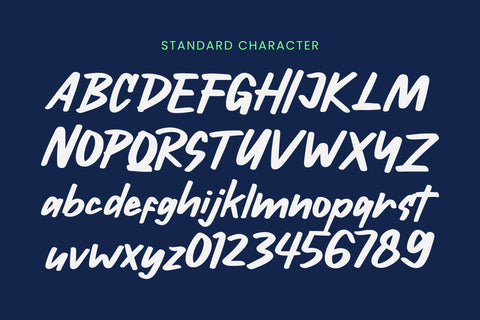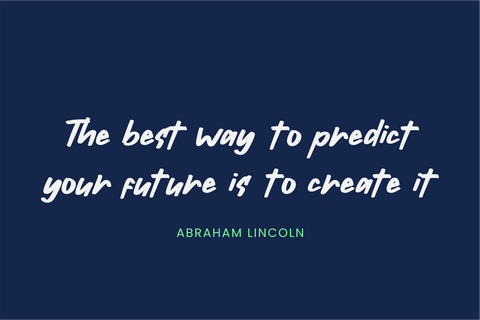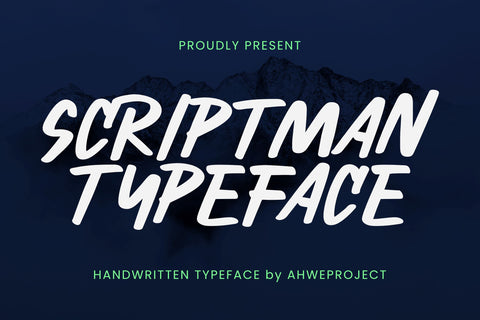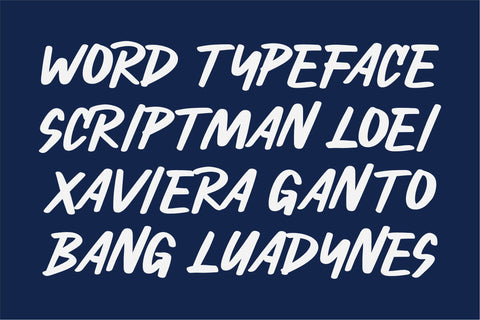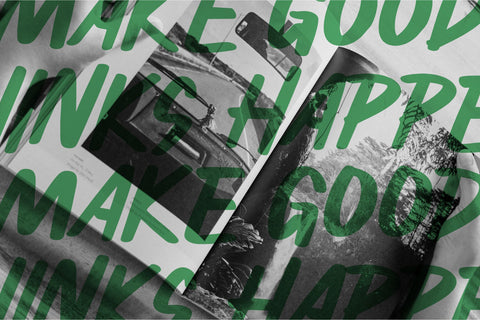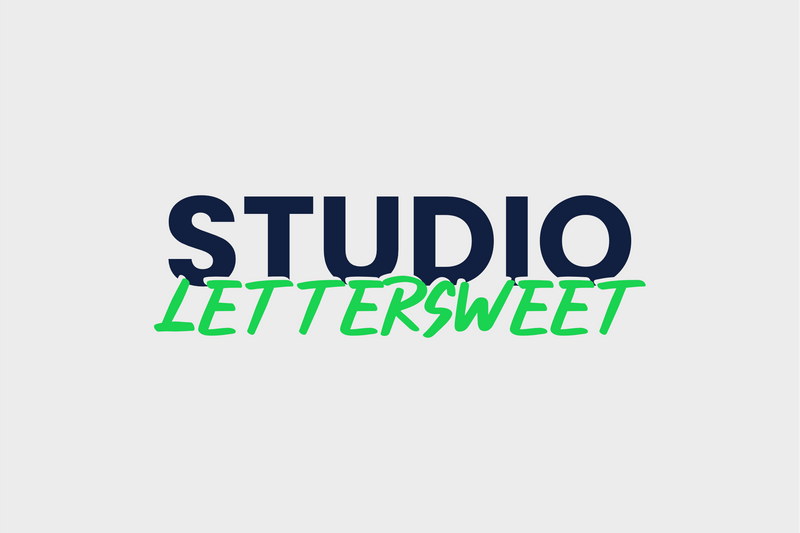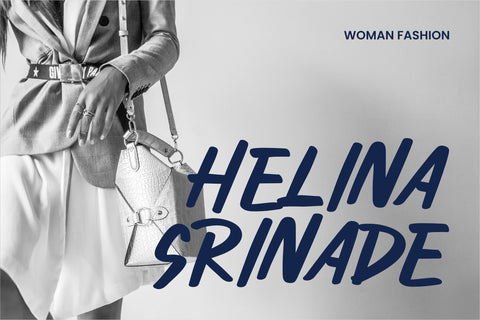
Scriptman
Scriptman is a script font created from direct hand strokes. With this font you can produce natural and attractive designs. Use this font for various designs such as logos, branding, magazines, headlines, quotes, and others.